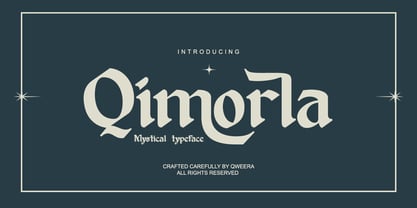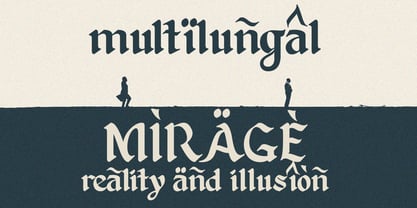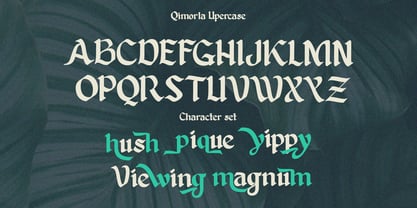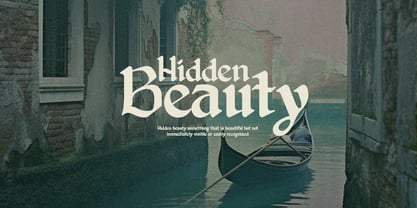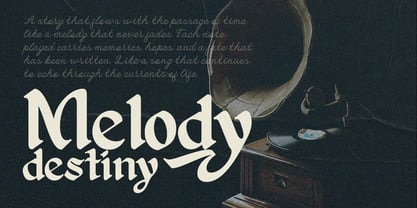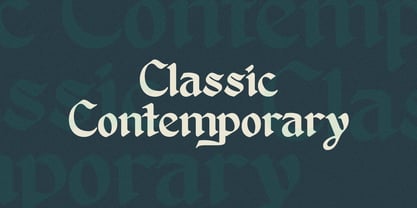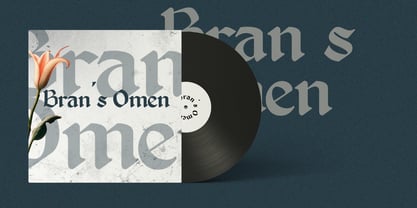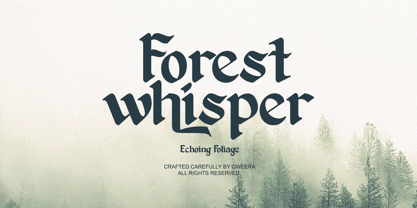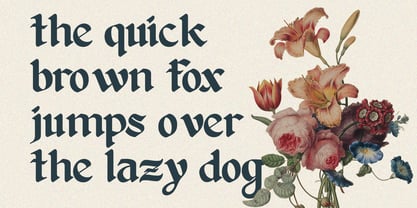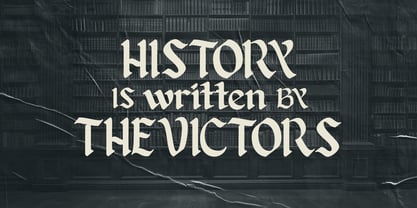
Qimorla
Qimorla – Blackletter Typeface for Bold & Dramatic Designs
Qimorla is a striking blackletter font that masterfully blends medieval calligraphy with contemporary edge. Featuring both regular and italic versions with intricate alternates and ligatures, this typeface delivers unmatched versatility for projects demanding bold, dramatic typography.
Where Gothic Tradition Meets Modern Impact
With its sharp angles and ornate details, Qimorla captures the essence of classic blackletter while offering modern design flexibility. Perfect for creating eye-catching logos, powerful branding, edgy packaging, and attention-grabbing posters that command authority and make a lasting impression.
Key Features
• Authentic Blackletter Style - Classic gothic calligraphy with modern refinement
• Dual Style Versions - Regular & italic for dynamic typographic contrast
• Exclusive Character Alternates - Multiple glyph variations for unique combinations
• Ornate Ligatures - Fluid letter connections for authentic calligraphic flow
• Premium Design Ready - Ideal for beer branding, music posters, luxury packaging
• Extended Language Support - Complete Latin character set plus special glyphs
Command Attention with Qimorla
Transform your projects with Qimorla's dramatic presence. Whether crafting vintage-inspired branding, edgy album covers, or premium product packaging, this blackletter font delivers the perfect balance of historical authenticity and contemporary versatility.